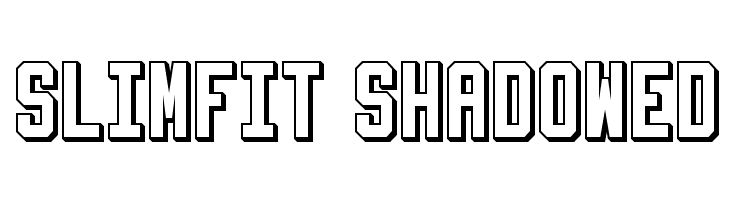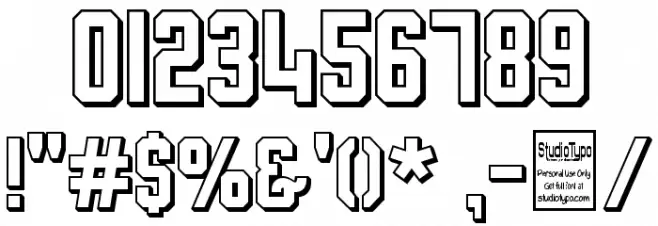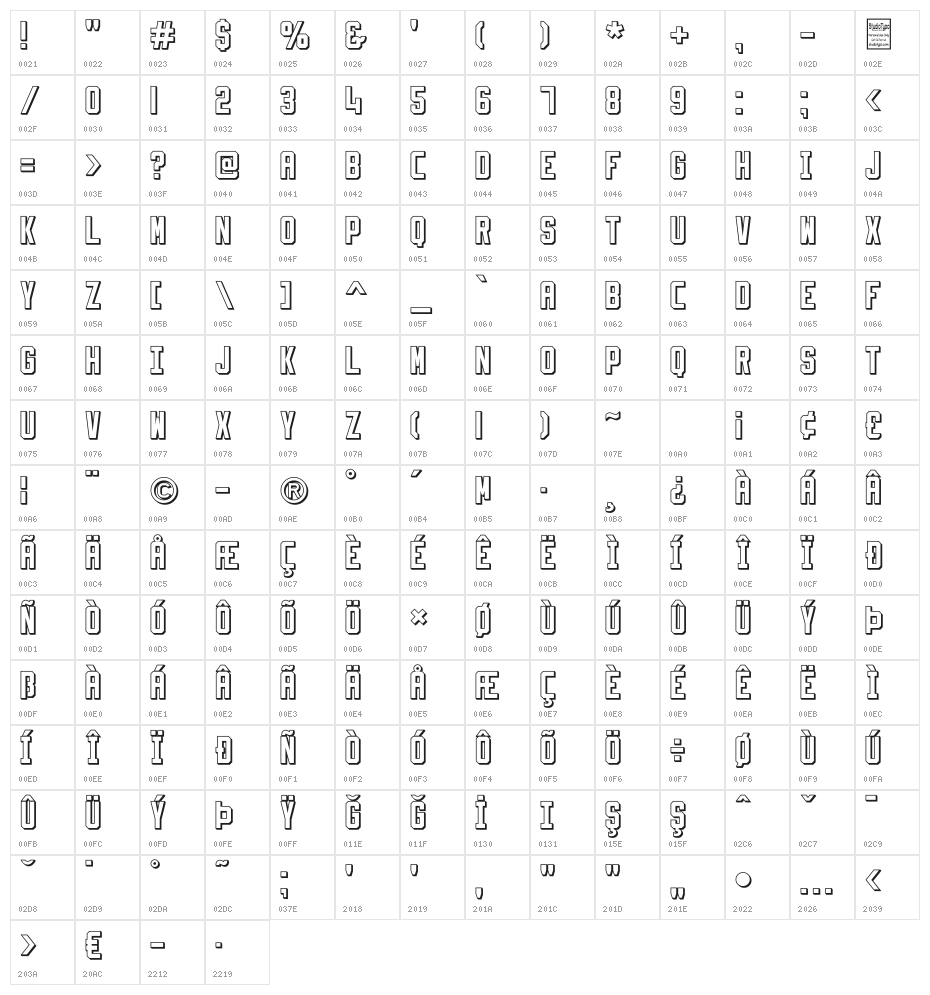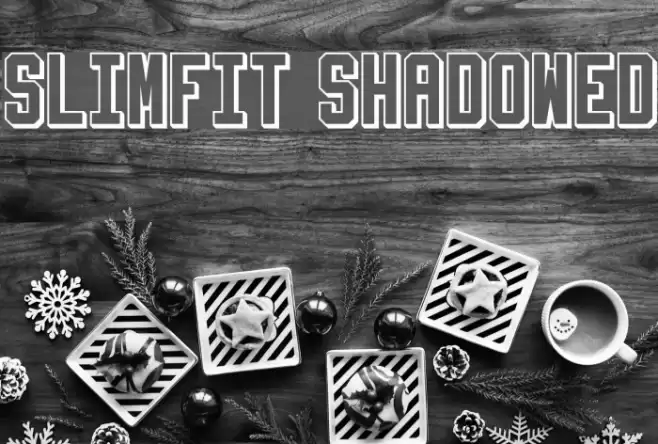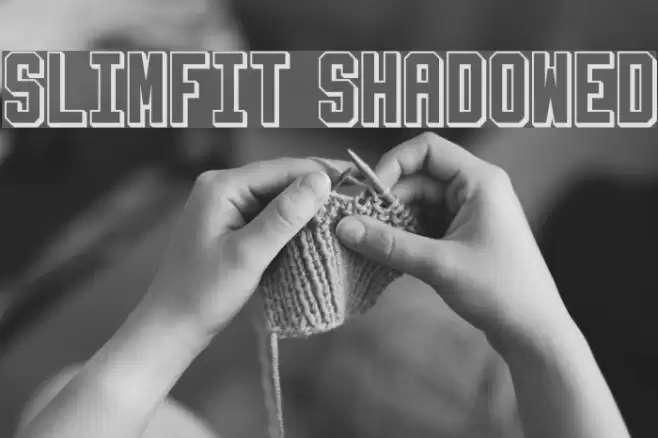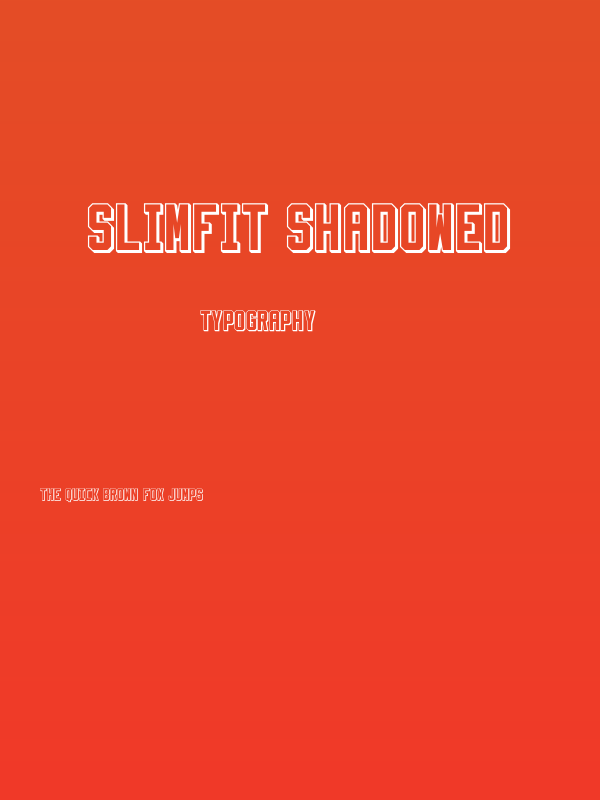
Slimfit Shadowed Font
Slimfit Shadowed Description
This font features a bold, geometric design with a shadowed effect that gives it a three-dimensional appearance. The uppercase letters are structured with sharp angles and clean lines, creating a modern and impactful look. The numbers and special characters maintain the same stylistic approach, ensuring consistency across all elements. The shadow effect adds depth, making it suitable for eye-catching designs. The font's style is both decorative and functional, ideal for projects that require a strong visual presence.
| Proposed Projects | Ideal for posters, headlines, logos, and any design that requires a striking visual impact. |